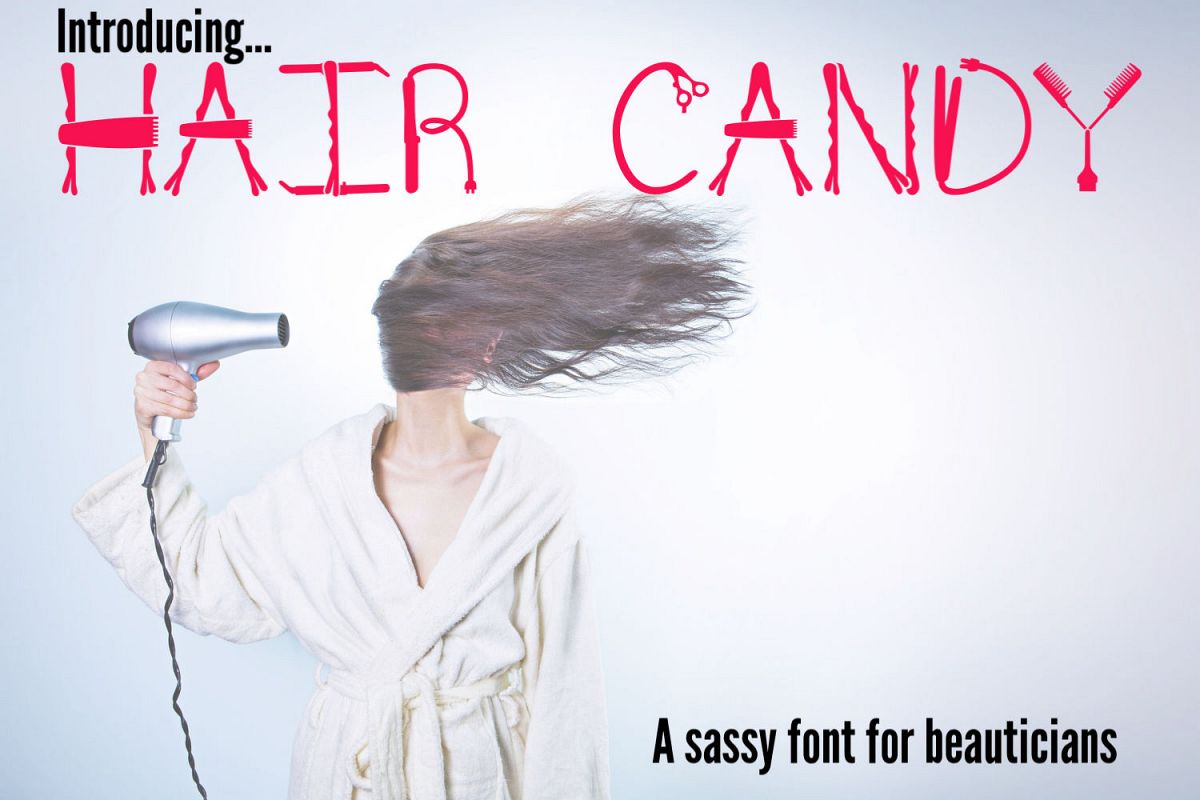
Hair Candy - A Sassy Font for Beauticians
Looking to create that perfect gift for your stylist? Look no further! let your creativity flow with this fun and quirky font made for hair stylists! Made up of some of the most used hair stylist tools, this font has all the right angles.